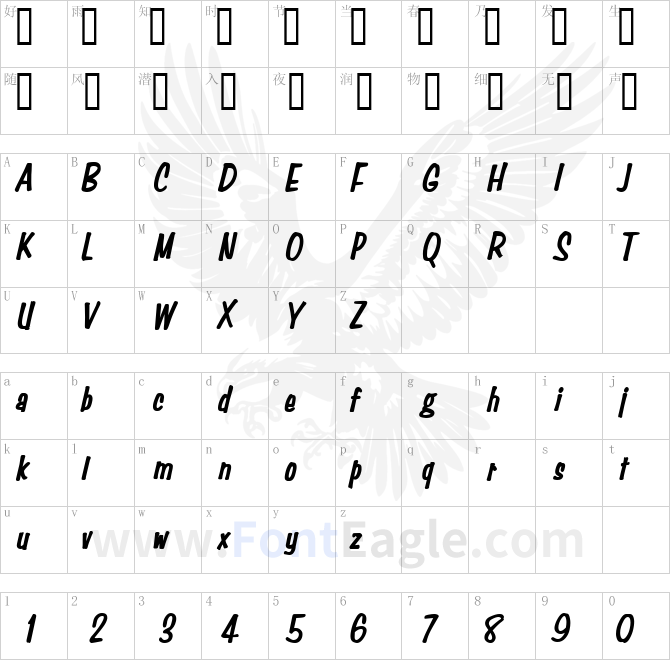
Simpson-Condensed-Heavy-BoldItalic is a great font, widely used in graphic design, single-page menu design, poster design and other fields, and is deeply loved by designers.Simpson-Condensed-Heavy-BoldItalic download.